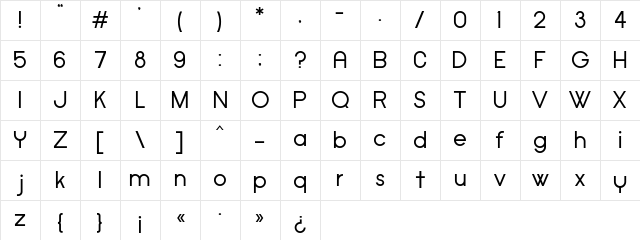
Cypher Semibold
Foundry Ill Type
Cypher Semibold
StyleSemibold
FoundryIll Type
DesignerNabeel Khalid
Design Context for Cypher Typeface
Cypher is a composed and adaptable typeface that performs quietly and consistently across a wide range of design contexts. The heavy weight commands attention and anchors typographic hierarchies.